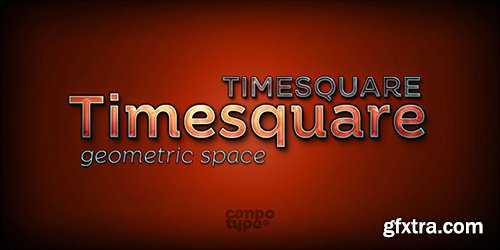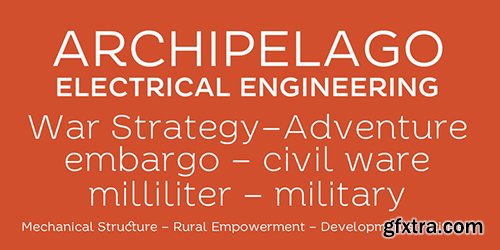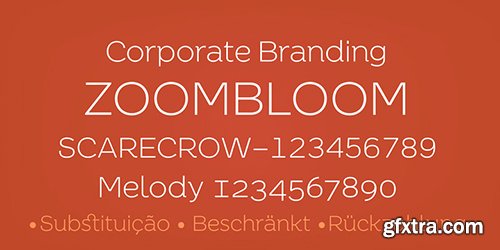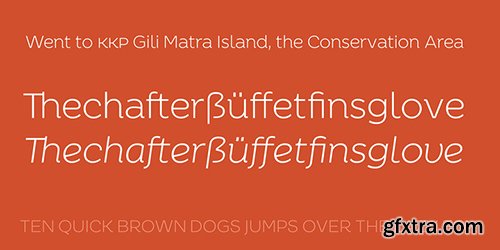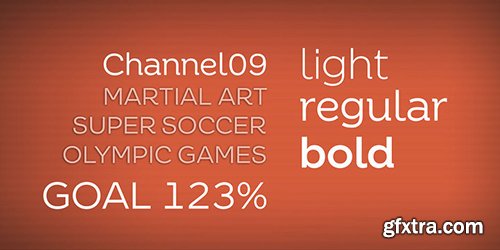
The initial idea of timesquare typeface inspired by Helvetica when presenting the board information on a subway escalator in Time Square, Manhattan, New York. This confirms strength the legend of Helvetica is not lost amid rampant nice fonts in the site. Therefore it should not appropriate that this timesquare fonts come to rival the greatness of Helvetica. Fonts timesquare thrive (since 2008 for self used) of the basic forms of Helvetica to timesquare born in different shapes and sizes. The greatest challenge during development timesquare is both shape similarity to Helvetica directly, as well as to other fonts inspired by Helvetica. Timesquare’s main characteristics are the wide character, modern touch and individually, can work well on a wide variety of applications in books, brochures and magazines as well as applications in advertising. This typeface has been developed on the Latin character sets. Hopefully useful. P A S S W O R D : TiMquagfxtra98735h TO MAC USERS: If password doesn't work, use this archive program: RAR Expander 0.8.5 Beta 3 and extract password protected files without error.